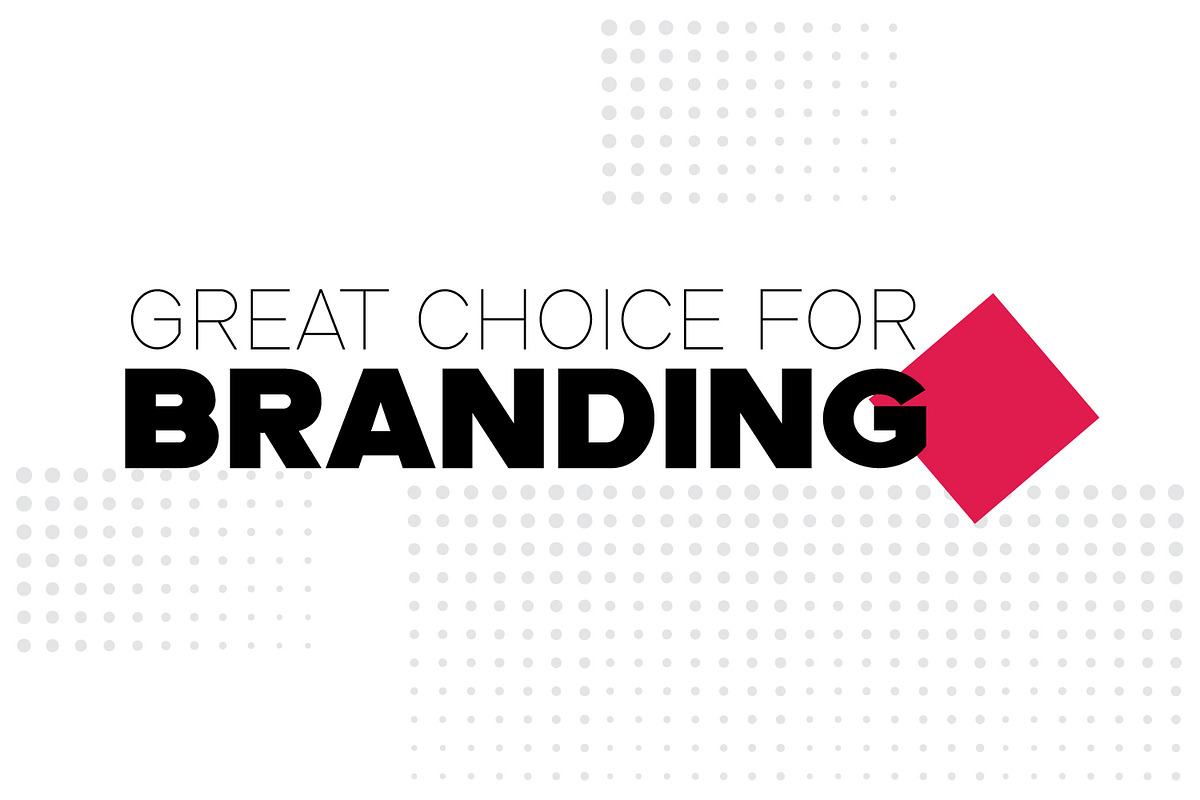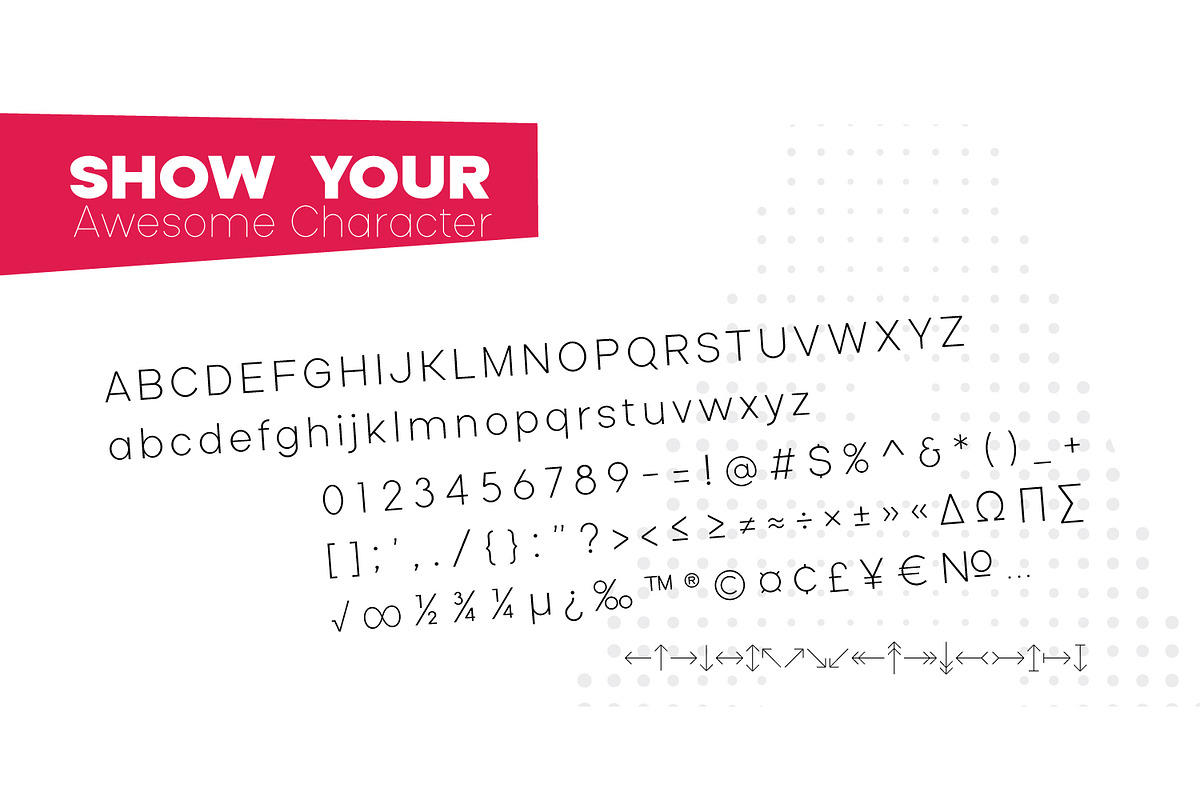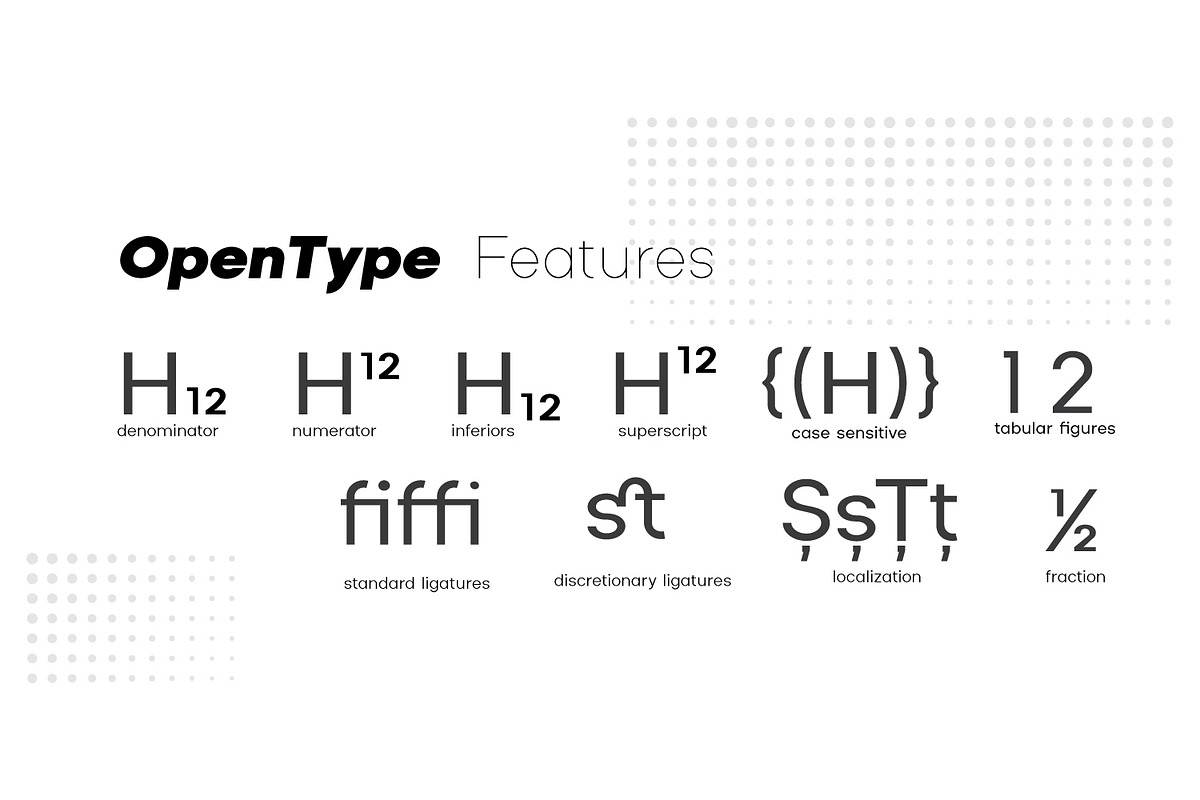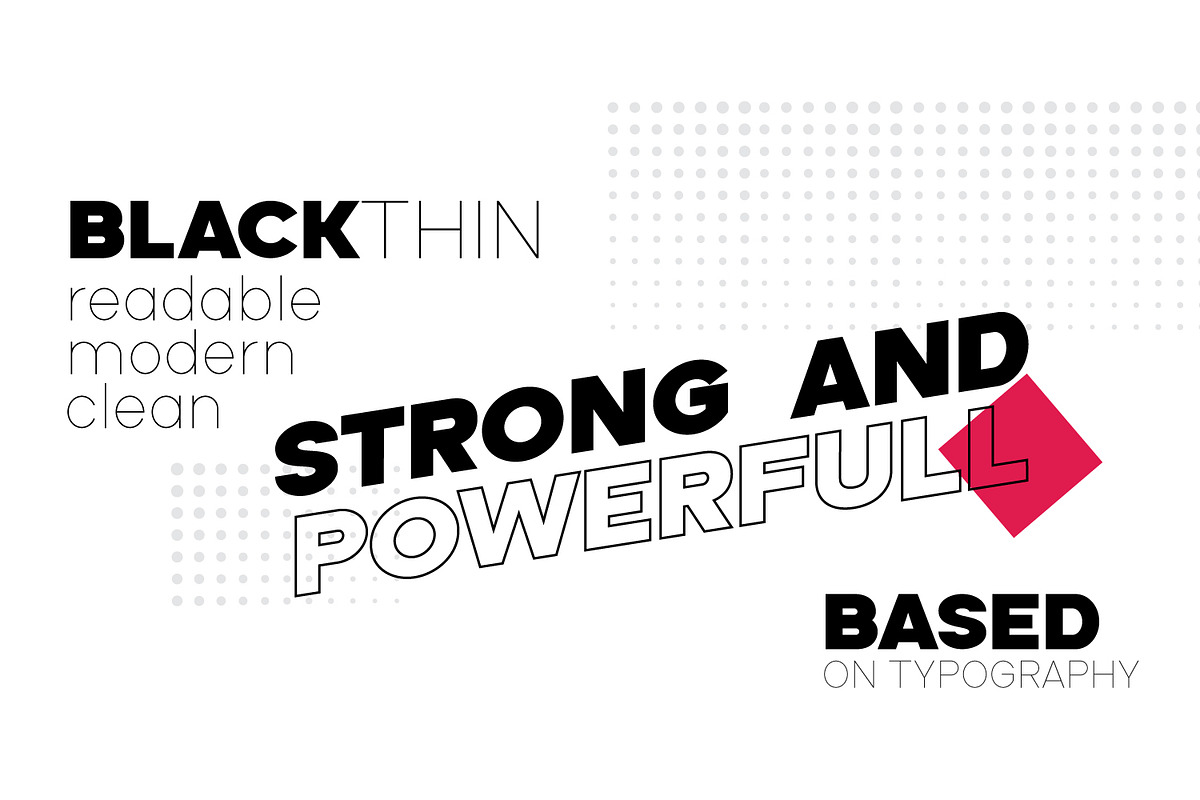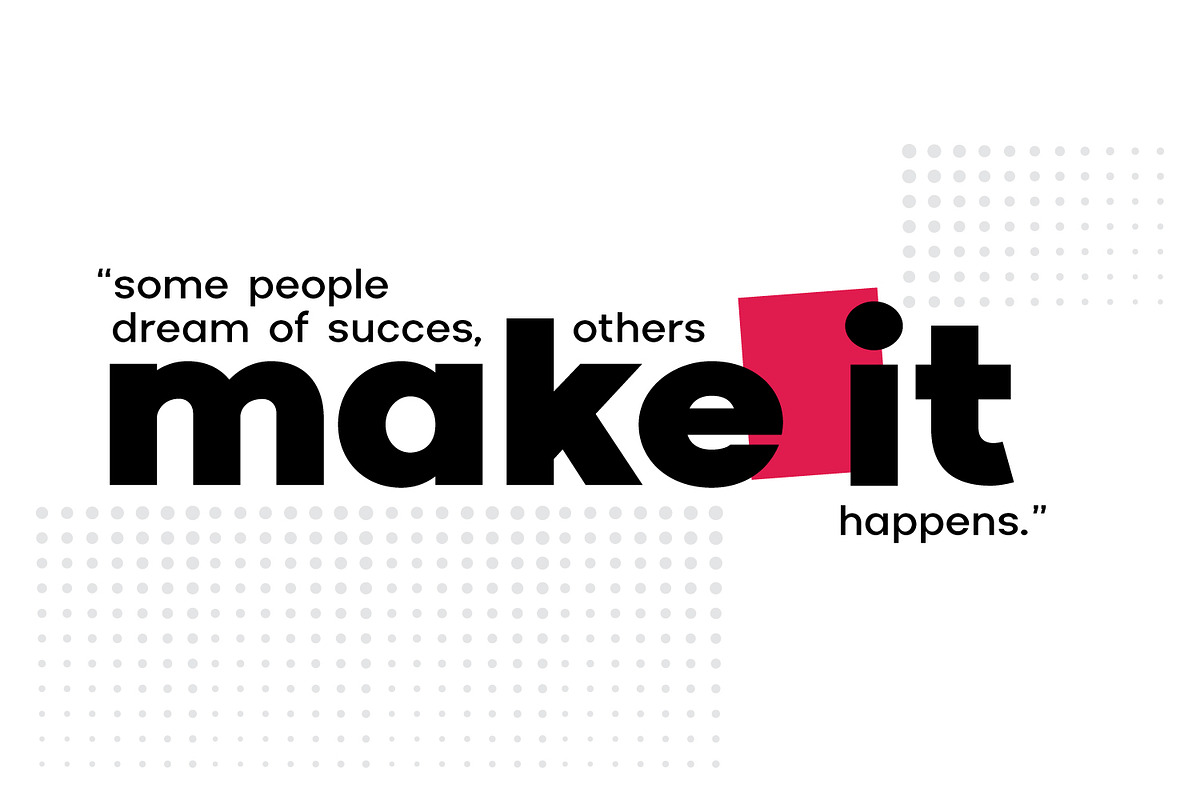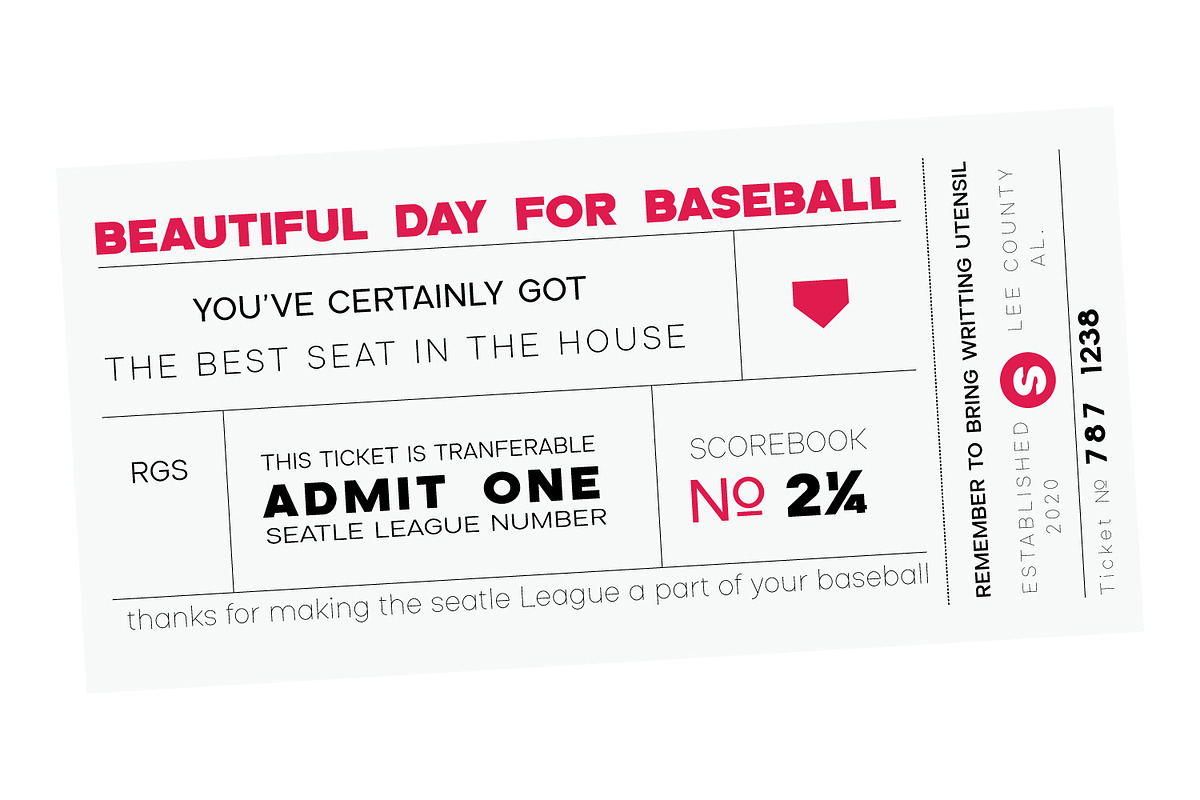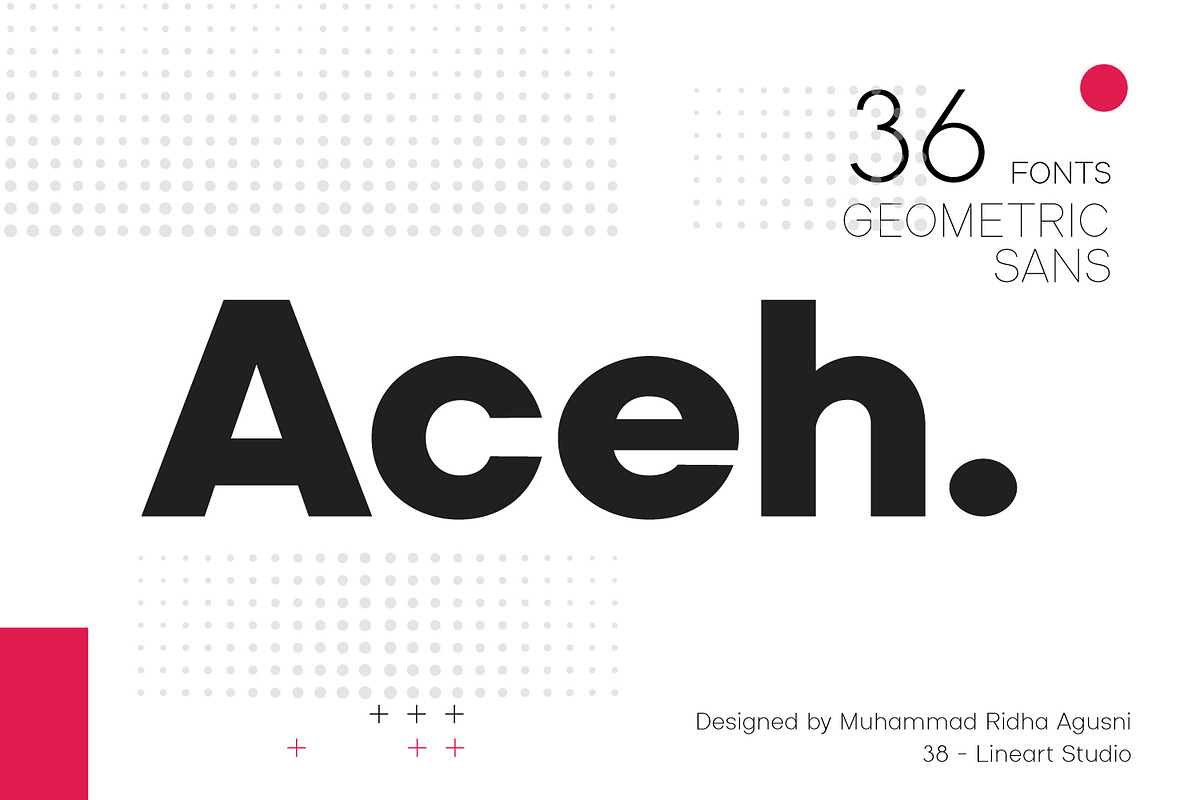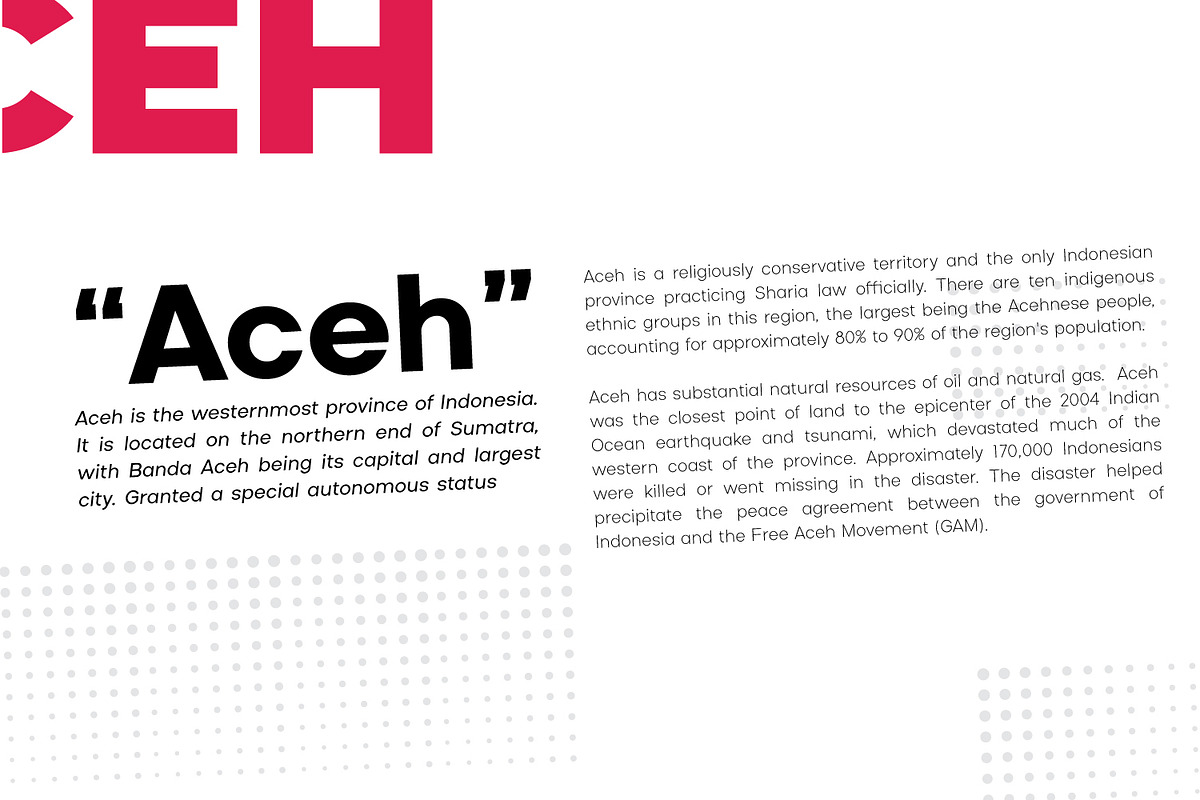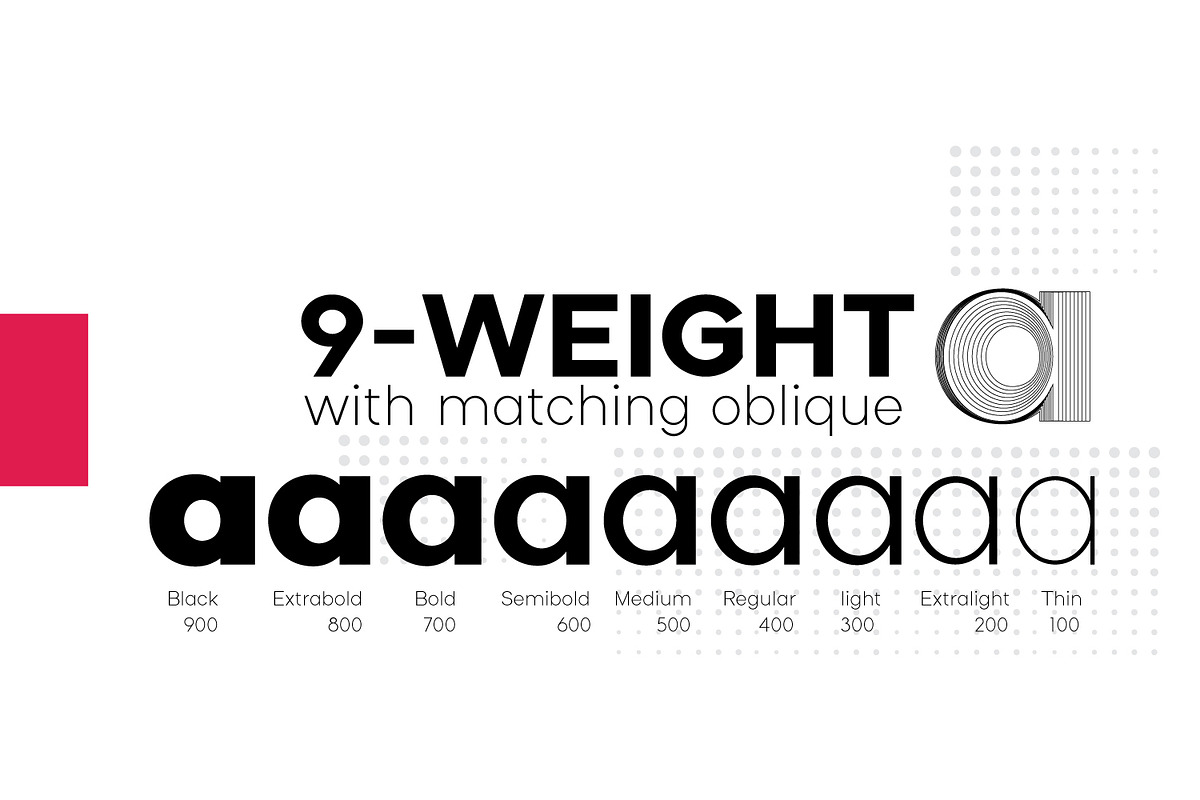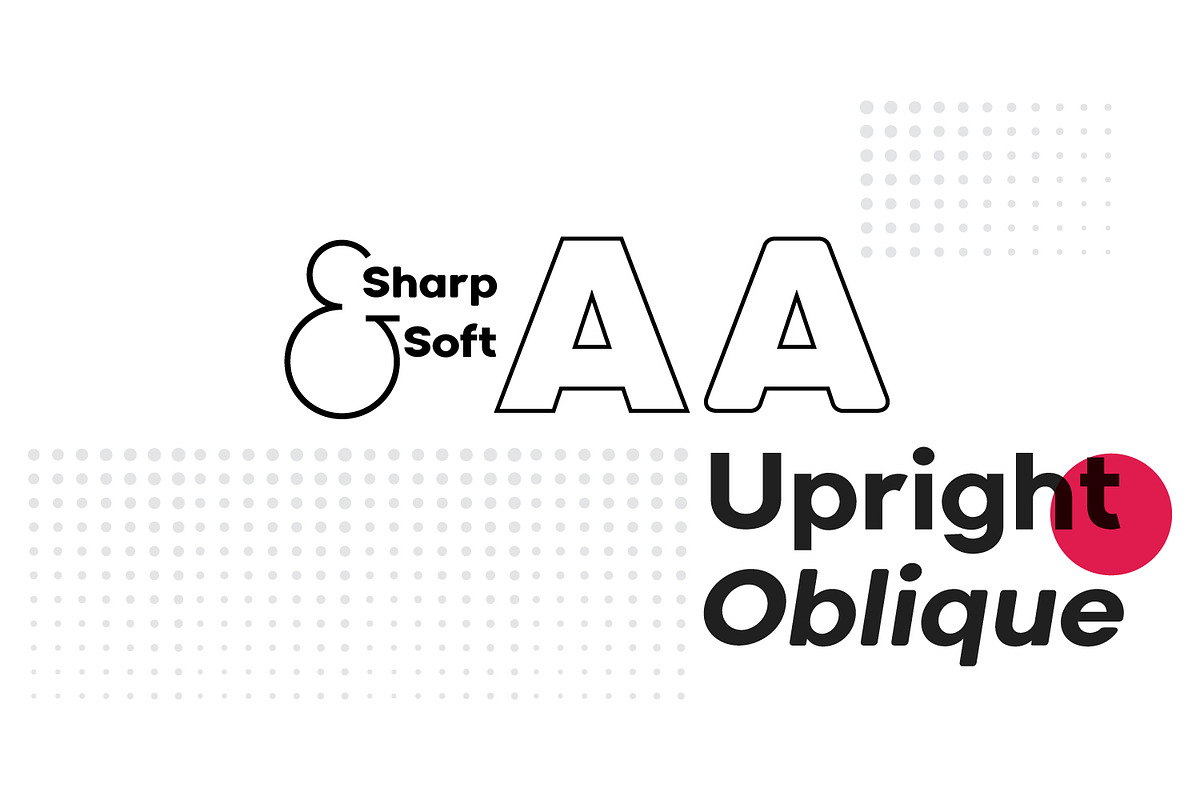
Aceh - Geometric Sans Serif Family
Aceh is a geometric sans serif font family, we make it in sharp and soft shapes, in the form of Upright with matching Oblique.
Aceh consists of 9 weight, Black is the most appear strong and powerful, while thin looks more clean and modern.
Aside from being a text font, we also intend this font for branding purposes, appearing more elegantly dynamic and reflecting a dynamic lifestyle.
Modern, Clean, Readable and powerful are the basic concepts of this font. With a choice of 36 fonts, we believe your brand will stand out